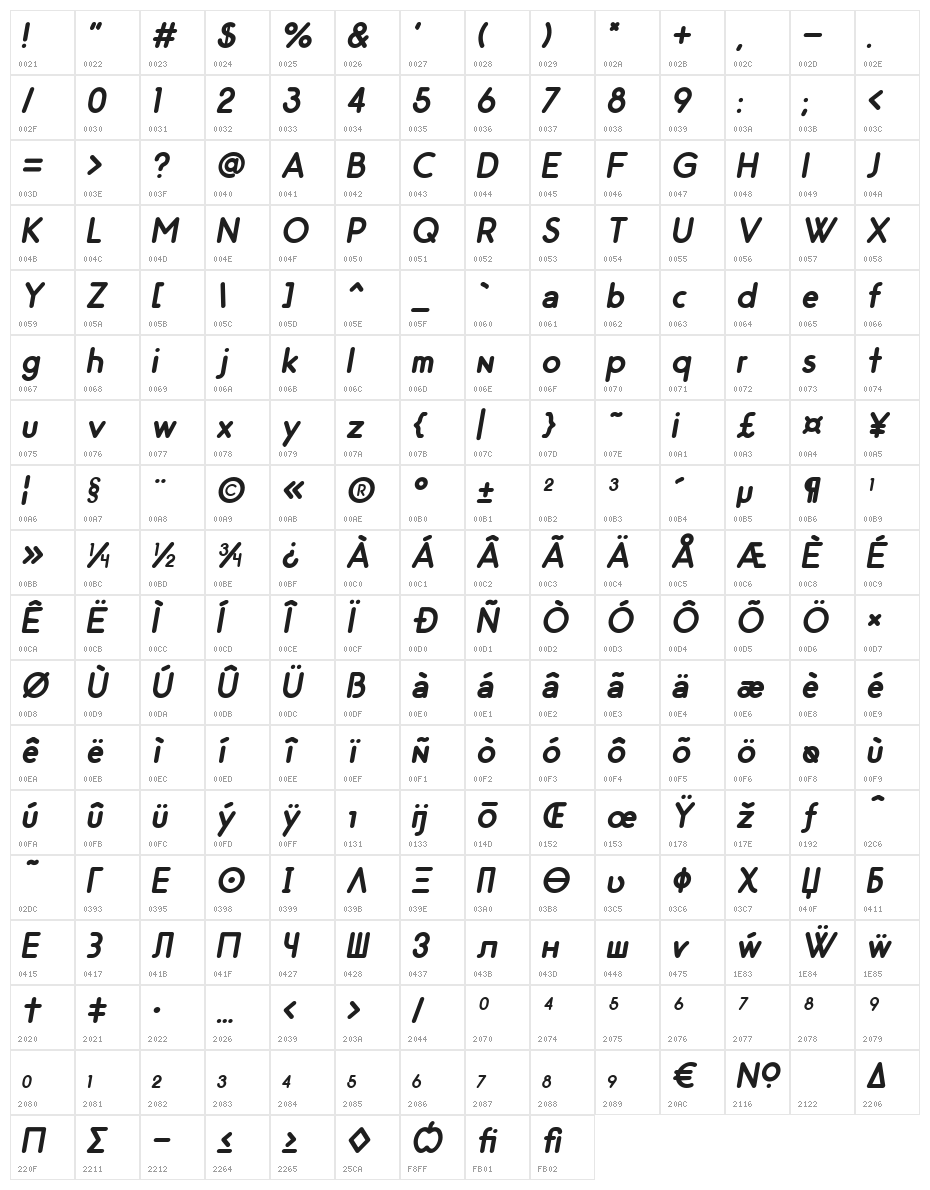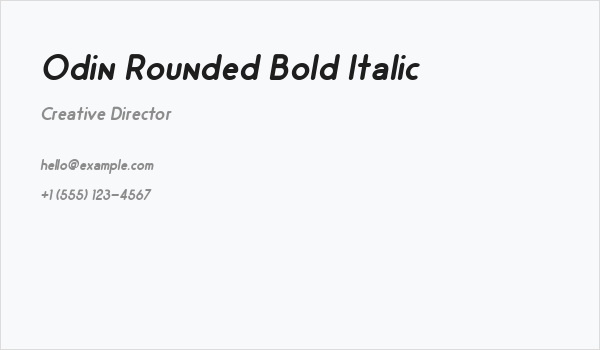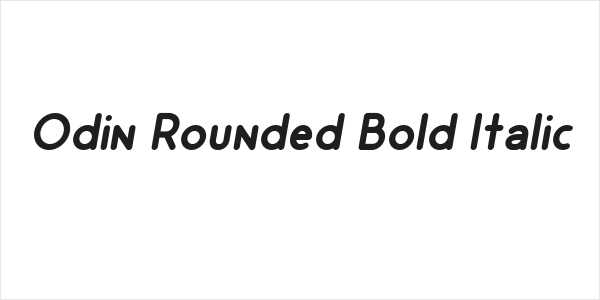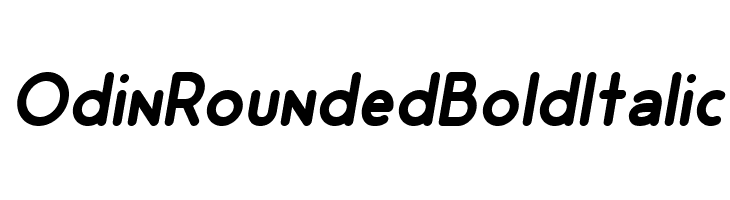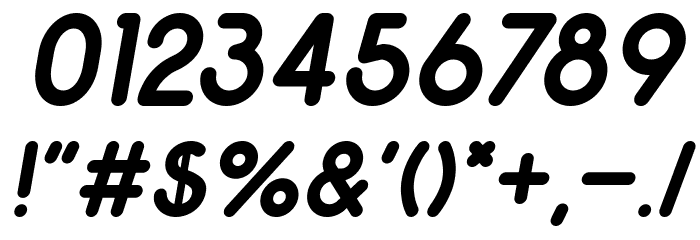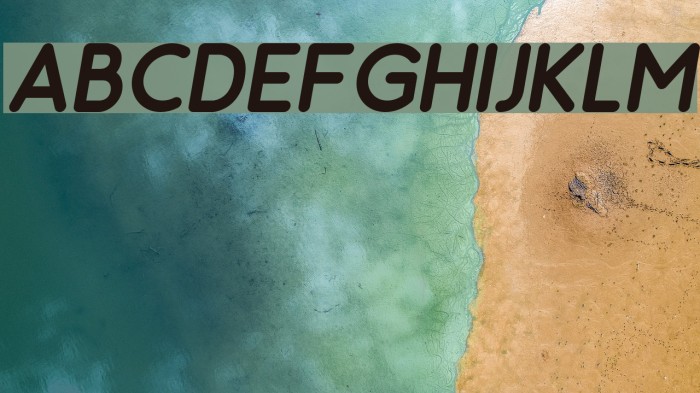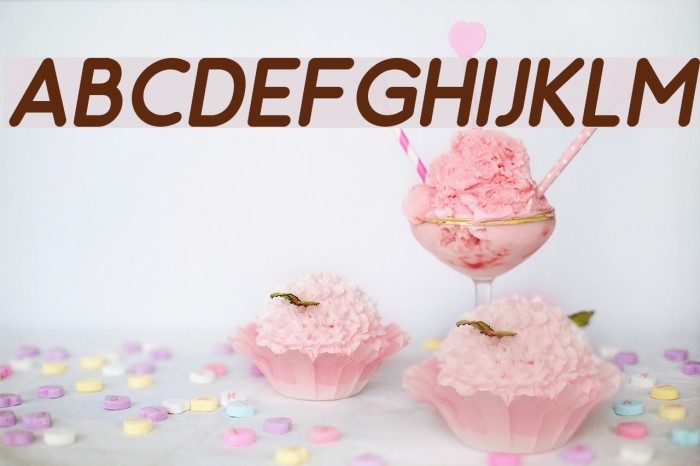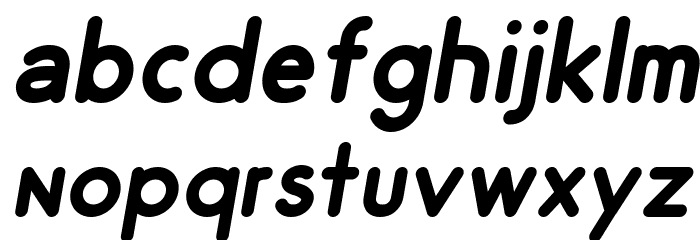
Odin Rounded Bold Italic Font
Odin Rounded Bold Italic Description
This typeface features a smooth, rounded appearance with a bold and italicized style. The characters are well-defined with a consistent stroke width, giving it a modern and friendly look. The rounded edges soften the overall appearance, making it approachable and versatile. The italic slant adds a dynamic feel, enhancing its suitability for creative and informal applications. The numerals and special characters maintain the same rounded and bold characteristics, ensuring uniformity across all elements.
Frank Hemmekam - www.frankthetank.info/
| Proposed Projects | Ideal for branding, advertising, headlines, and any project requiring a modern, approachable feel. |